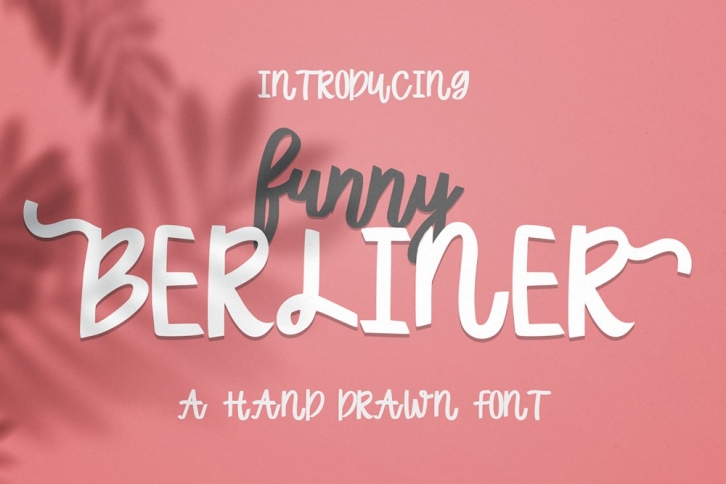
funny BERLINER is a trendy and unique font with an authentic style. It was designed by Artifex Create and it's a great choice for creative people who need such a font. It was released on January 17, 2020 and the file size is 21.32 MB. funny BERLINER will add an organic vibe to any design idea!